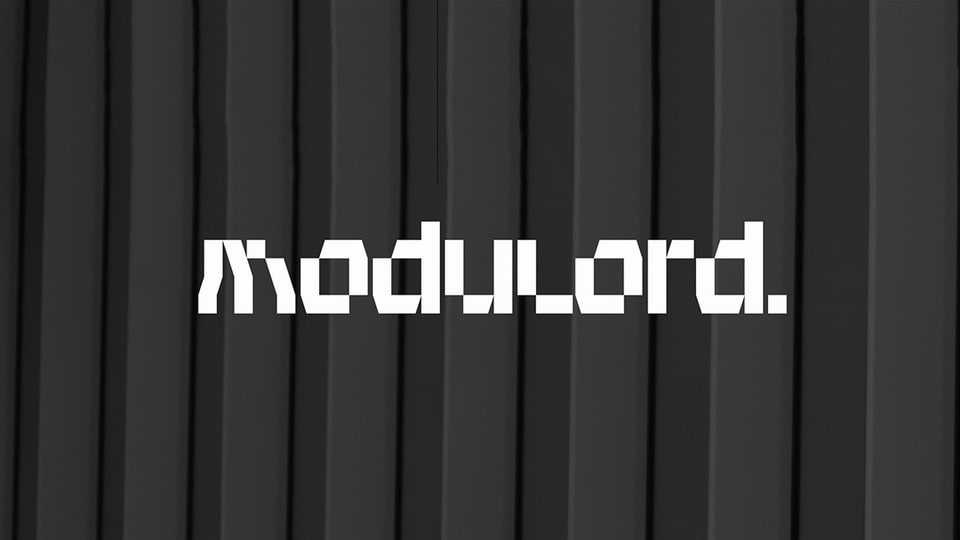
Download Modulord font, a display typeface inspired by square and rough forms of architecture, infrastructure and analog electronics. Modulord font characters are square with missing parts and look like blocks attached to each other.
Designer: Artem Grigorev